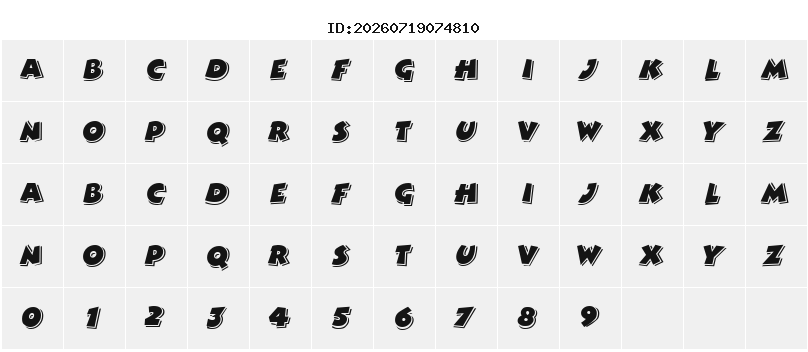
Comic Strip.ttf
Comic Strip Preview
• Font Name: Comic Strip
• Full Font Name: Comic Strip
About Comic Strip.ttf
Comic Strip.ttf is a modern, elegant sans-serif font designed for ultimate readability and visual harmony. Perfect for branding, headlines, web design, and print materials.